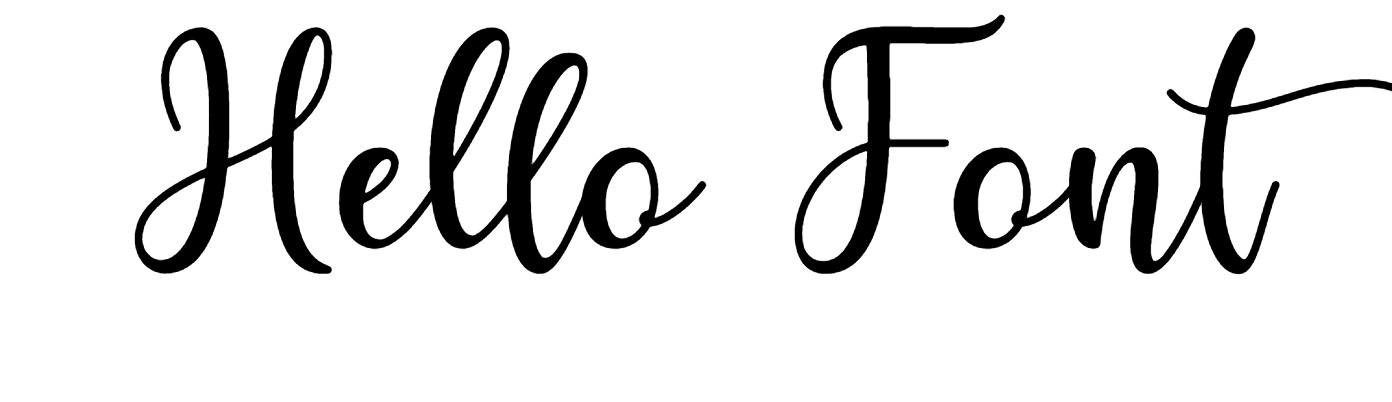
Hello
Hello is a calligraphy font designed by Aldi Raya Pradipta and published by @graphixlinestudio (2019). The letters have the smooth movement of real pen lettering, which is why even a single name looks special in it. It's a free download, and you can try it with your own text in the preview above first.
- Extra characters: 134 copy-and-paste alternates (Private Use Area)
What You Can Type With Hello
Hello covers the full alphabet in upper and lowercase, plus all ten numbers, so you can set names, dates and prices without switching fonts. Everyday marks like &, !, ? and @ are there too. Thanks to its accented letters, it also works for Spanish, French, Portuguese and Italian, not just English.
How to Use the Alternate Letters in Hello
Its 134 alternates are stored as separate characters, so you can copy them from Character Map on Windows or Font Book on a Mac and paste them anywhere, including Cricut Design Space and Canva. Its ligatures switch on by themselves in most design apps: certain letter pairs join into one specially drawn shape.
Where Hello Works Best
Designers usually reach for fonts like Hello when they're making wedding invitations, certificates and elegant quotes. Its lowercase letters are small compared to the capitals, so set it a size or two bigger than usual. Script fonts read best in short bursts, so keep it to names, titles and one-line quotes. Skip all caps: script capitals are drawn to start a word, not to fill one.
Who designed Hello font?
How do I get the alternate letters and swashes in Hello?
The 134 alternates are separate characters, so copy them from Character Map on Windows or Font Book on a Mac and paste them into your text. This works in Cricut Design Space and Canva too.
Does Hello support accented letters?
Yes. Hello includes the accented letters needed for Spanish, French, Portuguese and Italian, so it works for more than just English.